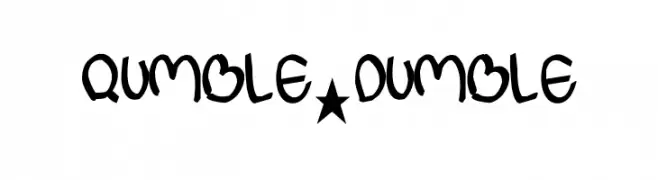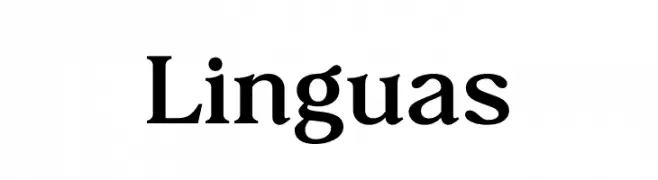
A playful, hand-drawn font with bold, rounded characters and smooth curves.
A playful set of cartoonish characters with expressive faces.
A playful, hand-drawn font with tall, narrow characters and a whimsical style.
A bold, geometric outline font with a modern and playful style.
A bold, italic font with a distressed, grunge texture.
A bold, condensed font with a playful, retro aesthetic and high contrast strokes.
A classic serif font with bold, elegant curves and pronounced serifs.
A hollow, condensed, and italicized font with a futuristic and dynamic style.